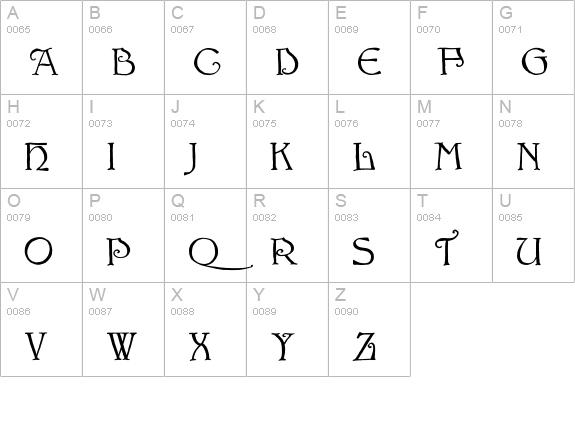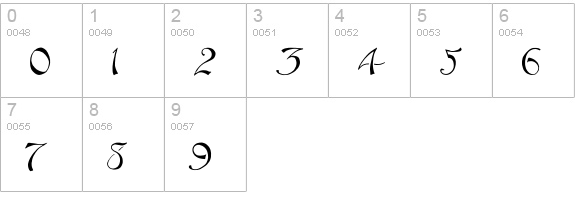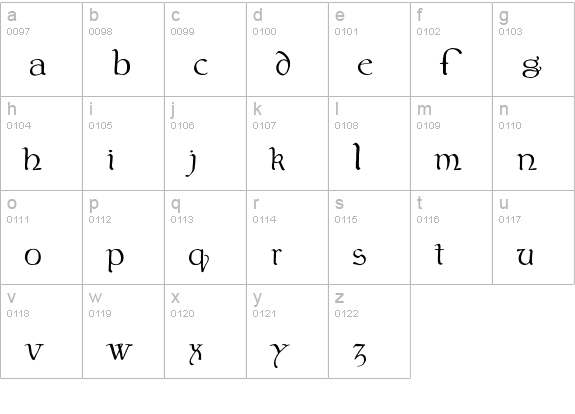
bu Wicked Font Details
Introducing the enchanting and captivating Wicked font, a mesmerizing typeface that will bring a touch of magic to your designs. This unique and stylish font exudes a sense of mystery and intrigue, making it perfect for projects that demand attention and intrigue. With its intricately designed letterforms and playful curves, Wicked is sure to bewitch your audience and leave a lasting impression. Its bold yet elegant presence makes it ideal for a wide range of creative endeavors, from logos and branding to posters, invitations, and more. But what sets Wicked apart from other fonts? It's not only its exquisite design, but also the fact that it is available for free! Yes, that's right. Wicked font can be freely downloaded at FontsMarket.com, allowing you to effortlessly add a touch of magic to your designs without breaking the bank. Whether you're a professional designer looking for a versatile font to elevate your work or an aspiring creative seeking to make an impact, Wicked font is the perfect choice. Its versatility, elegance, and accessibility make it a must-have in any designer's toolbox. So, don't miss out on this opportunity to captivate your audience with the mesmerizing Wicked font. Head over to FontsMarket.com today and download it for free. Unleash your creativity and let Wicked cast its spell on your designs.